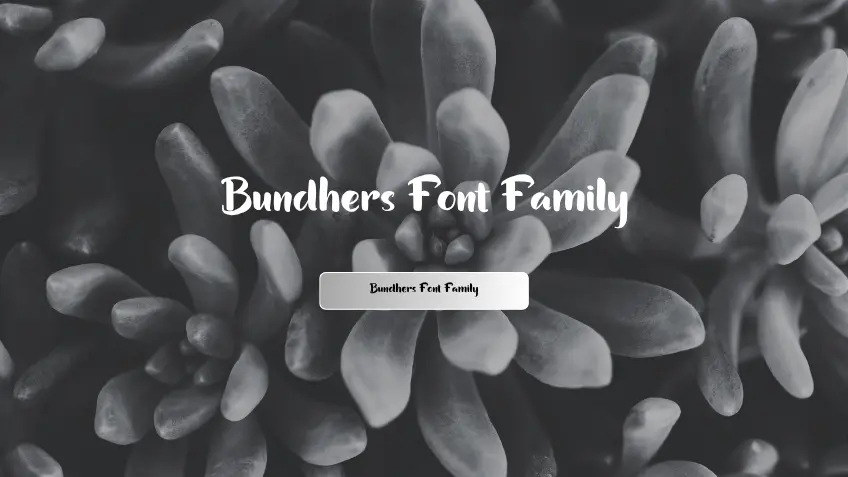
The font Bundhers Regular, designed by Patria Ari, falls under the Display, Handwritten category & Bundhers font family. Its smooth, flowing letterforms make it a versatile choice for projects that require both elegance and readability. Bundhers is particularly well-suited for Birthday Invitation, Crafting, Display, Invitations, Greeting Cards, Holiday Designs, fun touch and Brochures. With its balance of simplicity and decorative appeal, this font brings a polished touch to both personal and professional designs.